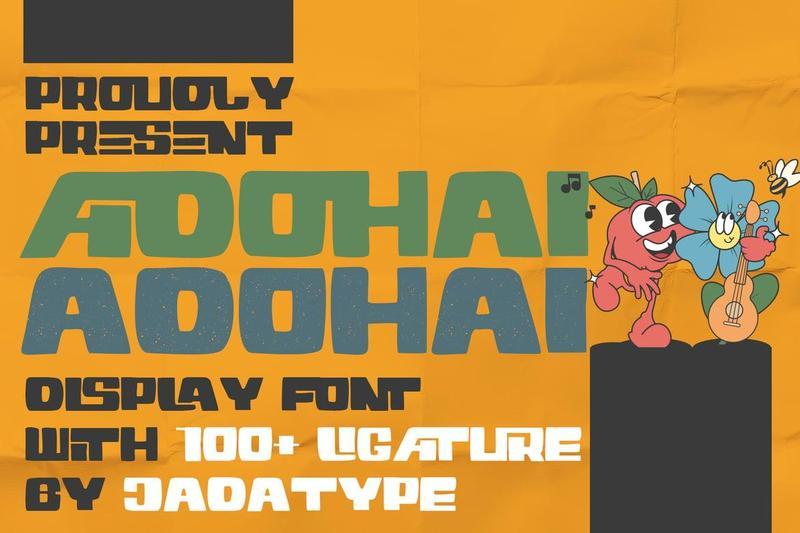
Adohai – All-Caps Display Font 4ULWCGT
Adohai is an all-caps display font featuring bold, groovy, and texturized letterforms that create a fun and eye-catching visual style. It is perfect for branding, product packaging, social media graphics, logotypes, posters, merchandise, and modern display typography. The font includes standard English letters, numbers, punctuation, and multilingual accented characters, making it a versatile choice for creative projects.
Standard uppercase letters
Numbers and basic punctuation
Bold groovy all-caps display letterforms
Texturized character style
Several accented characters for multilingual support